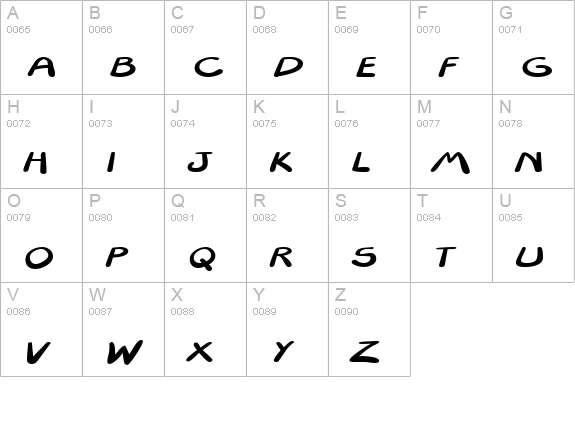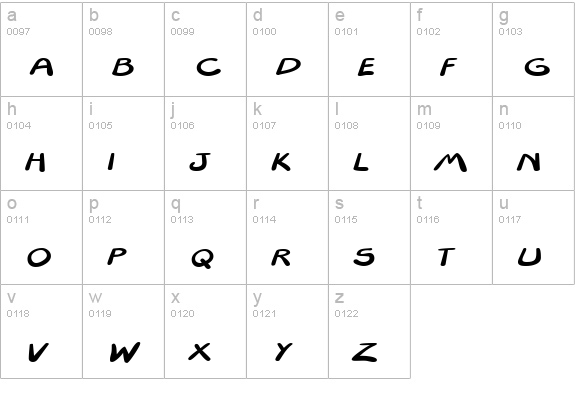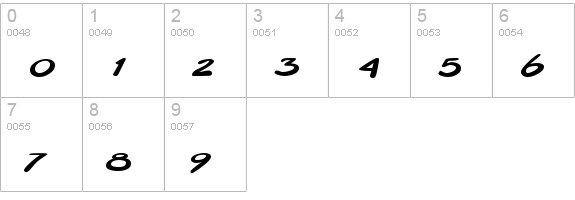
Introducing Textapoint font, a versatile and elegant typeface that is sure to captivate your audience with its timeless appeal. This contemporary font combines the perfect blend of sophistication and readability, making it suitable for a wide range of design projects. Textapoint font offers a unique and distinctive look, with its clean lines and balanced proportions. Each character is expertly crafted to ensure legibility, even at smaller sizes, making it an excellent choice for both print and digital media. The beauty of Textapoint font lies not only in its aesthetic qualities but also in its incredible versatility. From editorial layouts to branding materials, from websites to social media graphics, this font is an ideal choice for any creative endeavor. One of the standout features of Textapoint font is that it is available for free download at FontsMarket.com. This means that designers and creatives can easily access and utilize this extraordinary font without any cost. It's a true gem in the world of typography, providing high-quality design options without breaking the bank. Whether you're a professional designer looking to enhance your projects or a DIY enthusiast wanting to add a touch of elegance to your personal creations, Textapoint font is the perfect addition to your toolkit. Its versatility, readability, and the fact that it is freely available make it a must-have for anyone seeking to elevate their design game. Don't miss out on the opportunity to experience the beauty and functionality of Textapoint font. Head over to FontsMarket.com today and download this exceptional typeface for free. Elevate your designs and make a lasting impression with Textapoint font.